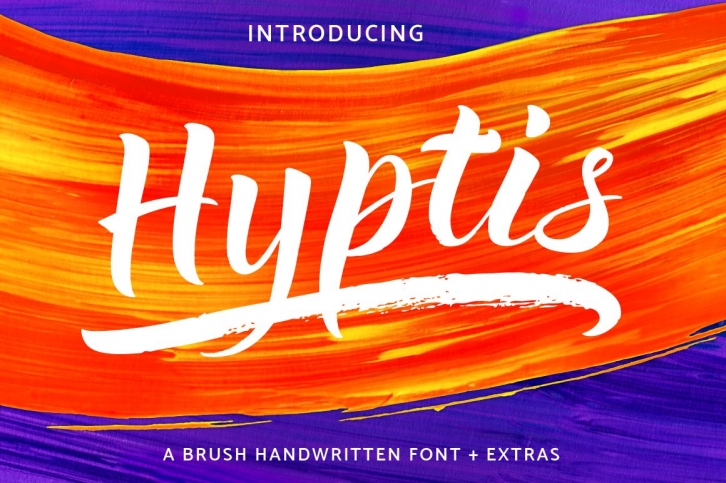
Hi there! Let me introduce Hyptis – a font based on soft brush handwritten letters.
When I was working on this font, I focused on searching a balance between clean digital letterforms and little imperfections left over from handwriting. You can use Hyptis for logos, branding, magazine and book design, product packaging – or simply to type any text on postcards or on your favorite photos.
Hyptis contains a standard set of characters (uppercase, lowercase, numbers, punctuation), international characters (supports Western, Central-European, Eastern-European, Baltic and Turkish languages), a number of ligatures and alternate letters (in case if the letter is at the end of the word).
Also, Hyptis comes with a bonus font, Hyptis_swashes, that includes a set of 26 swashes – linear, round or oval. To type it, simply use small letters from a to z.